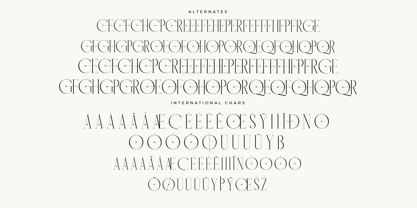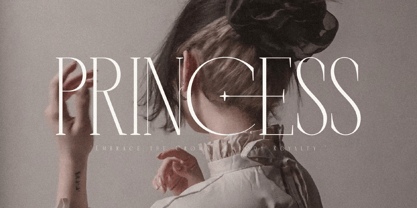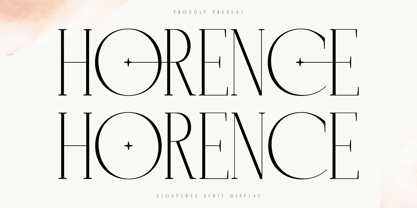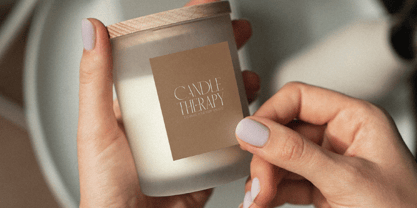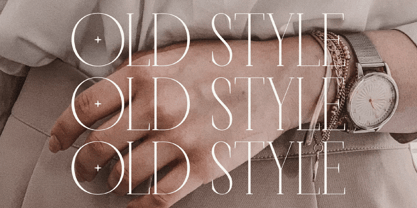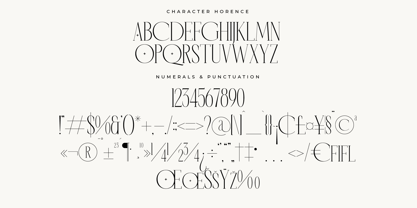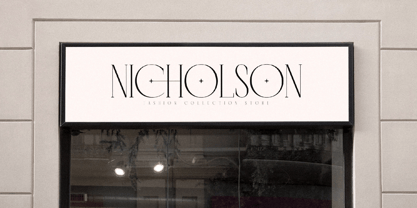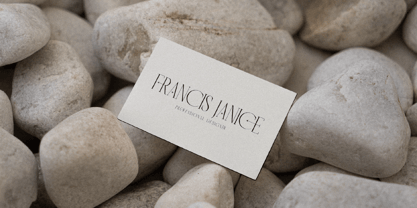
Horence
by Letterena Studios
The Horence Font Family was designed by Heru Utama Putra and published by Letterena Studios. Horence contains 2 styles and family package options. More about this family
Horence is an elegant high-contrast serif display typeface crafted with refined thin strokes, extended letterforms, and sophisticated ligature details that add a luxurious, editorial character to any design. Its graceful proportions, minimalist curves, and signature circular cross-bar accents make it a perfect choice for high-end branding, fashion editorials, beauty packaging, wedding stationery, magazine covers, and modern luxury logos. Designed for visual impact and timeless sophistication, Horence delivers an elevated typographic presence that blends contemporary minimalism with classic serif elegance.